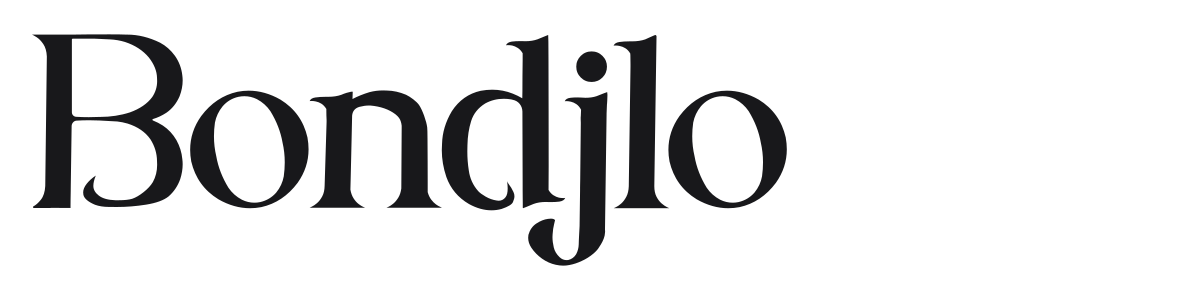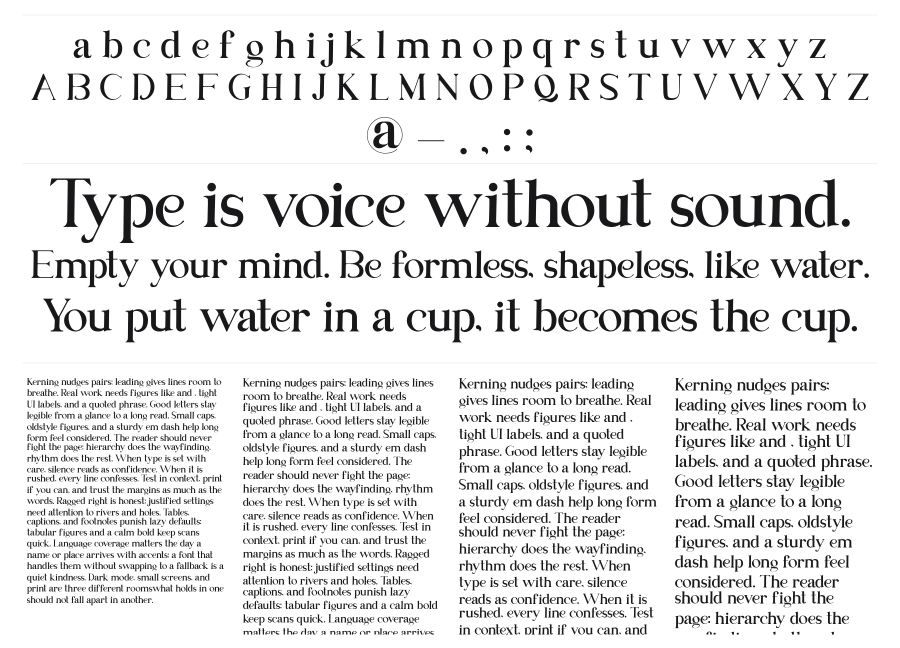
Bondjlo
Bondjlo is a high-contrast modern serif with dramatic thick-to-thin stroke transitions rooted in Didone tradition. Wide proportions and delicate hairline serifs give it a polished, fashion-forward character, while subtle calligraphic touches in select lowercase letters add warmth. It reads confidently at large display sizes.